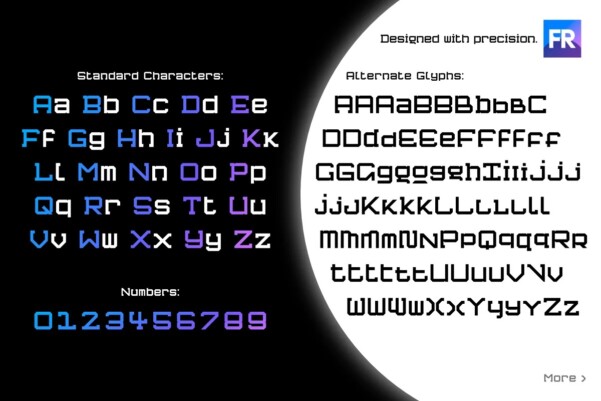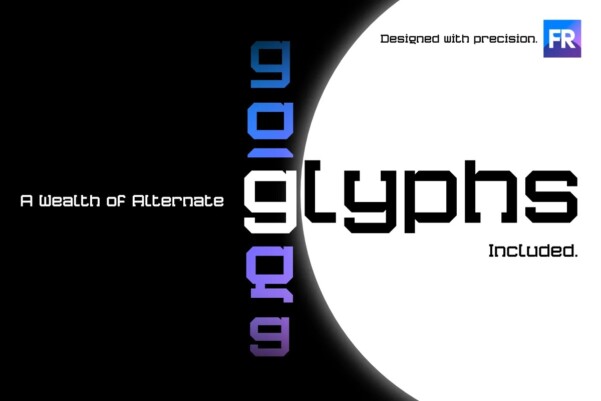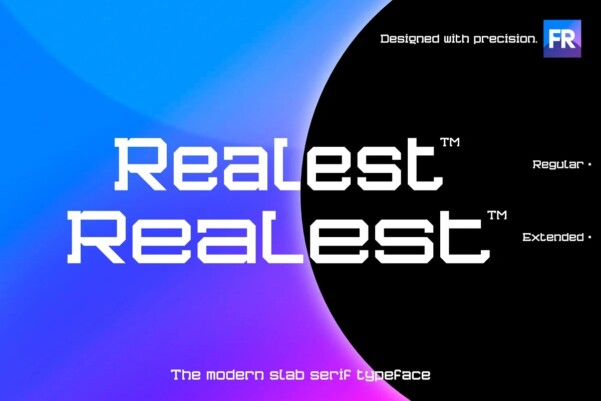
Realest Font
Realest Font is a modern slab serif font designed with mathematical precision. The entire typeface is crafted with consistent angles & measurements down to the smallest detail. It is built on mathematics. For this reason, it is a highly versatile font, ideal for branding, logos, websites, ads, graphics, clothing & printable materials.